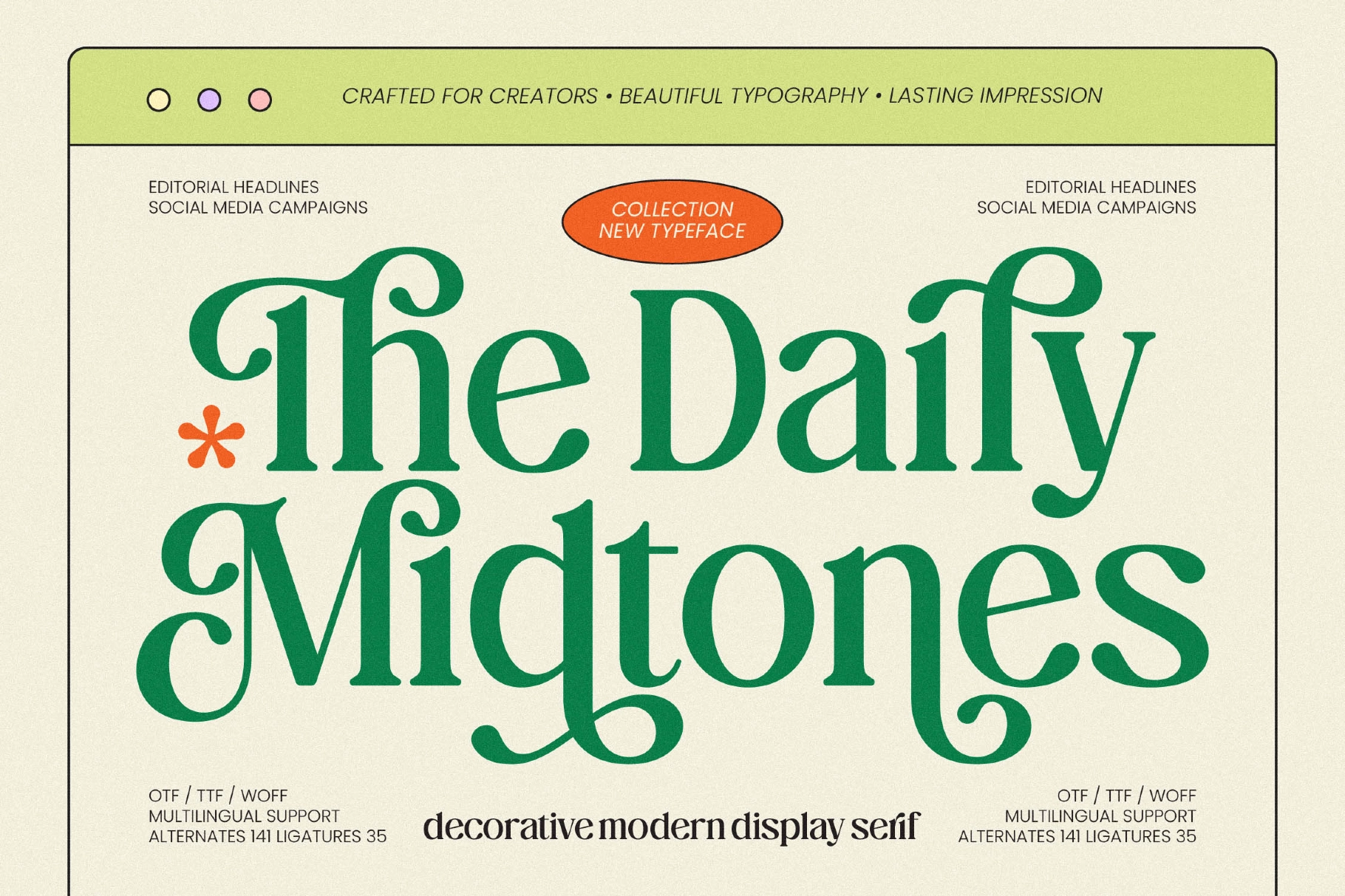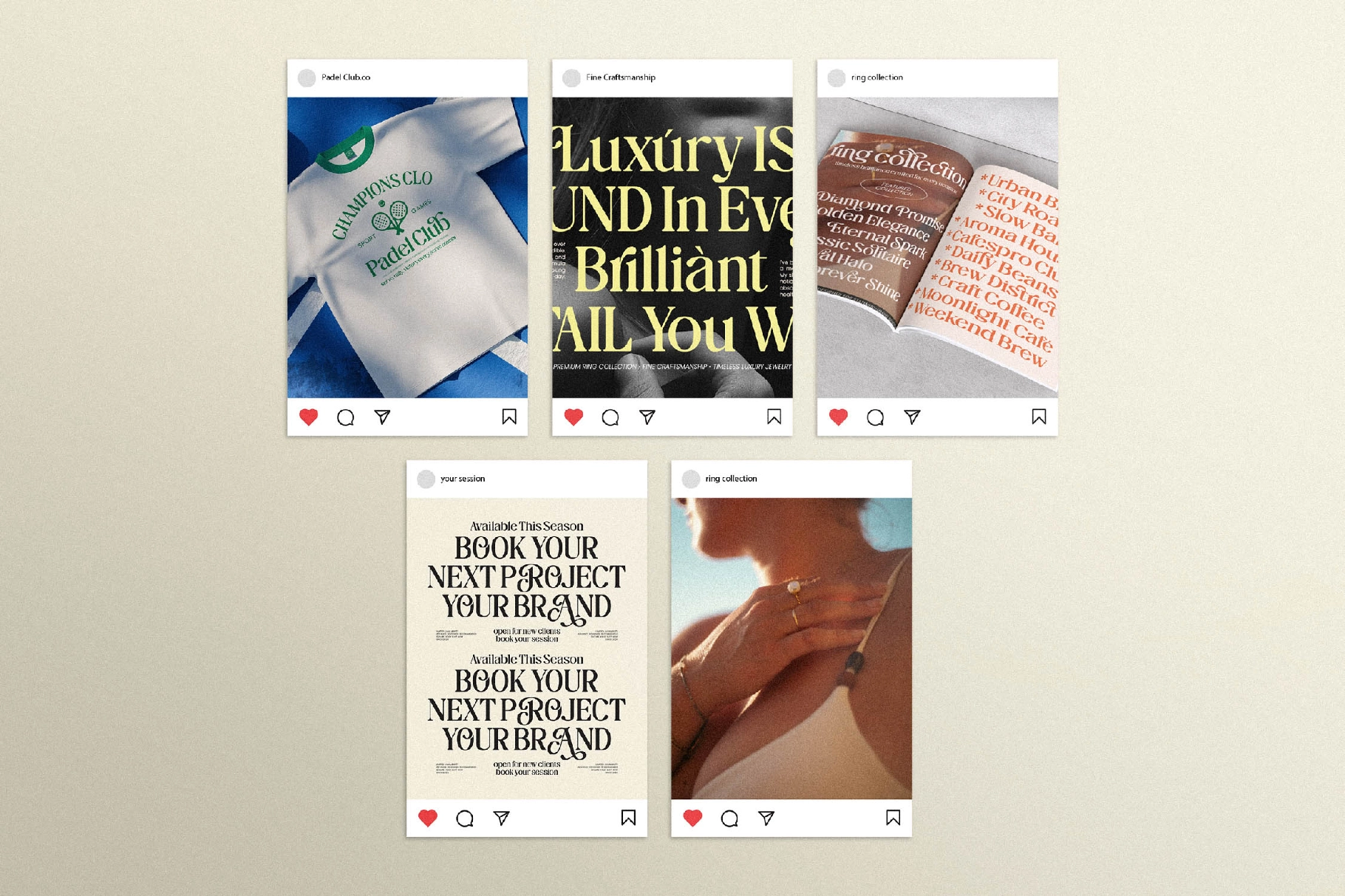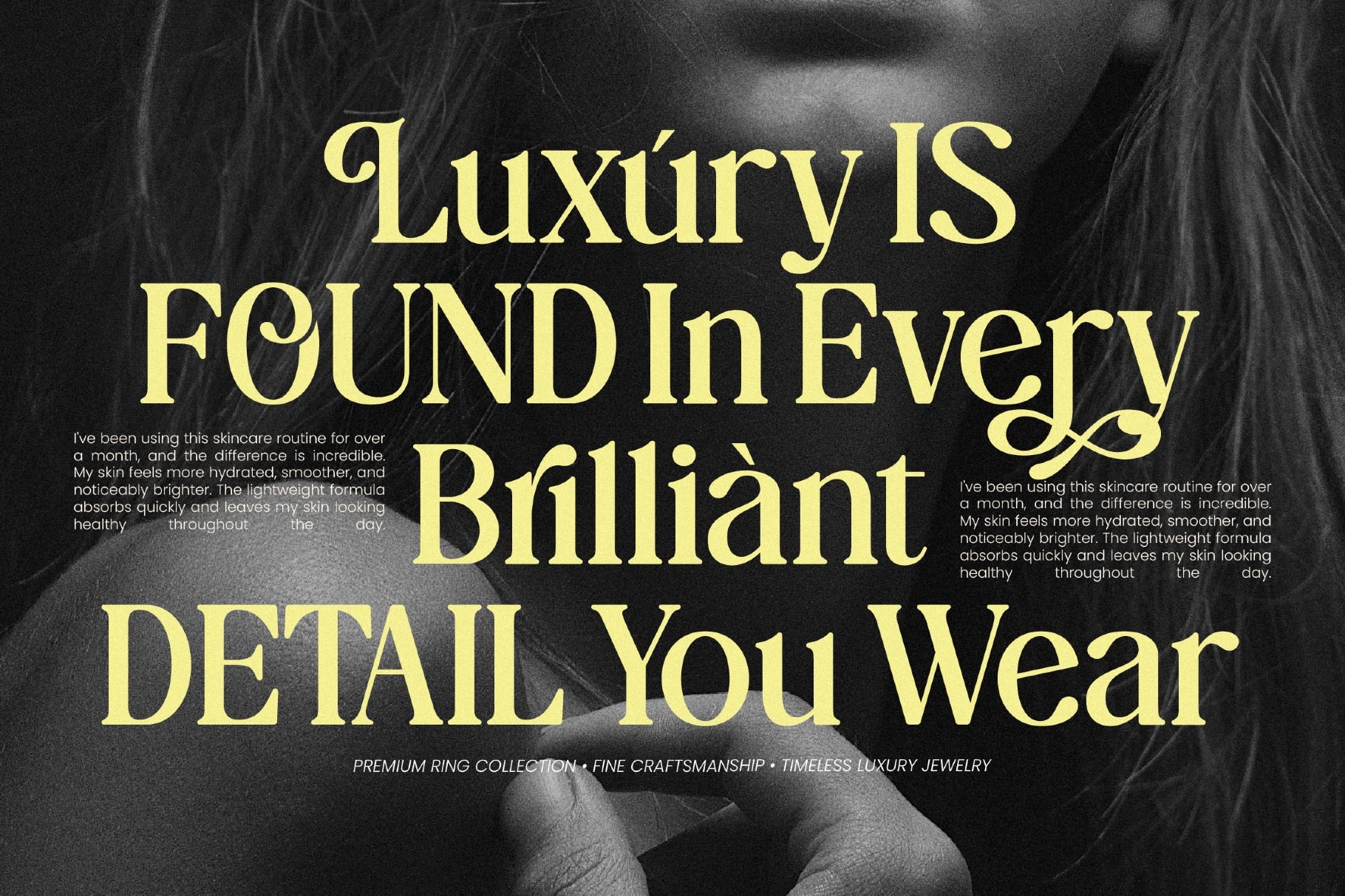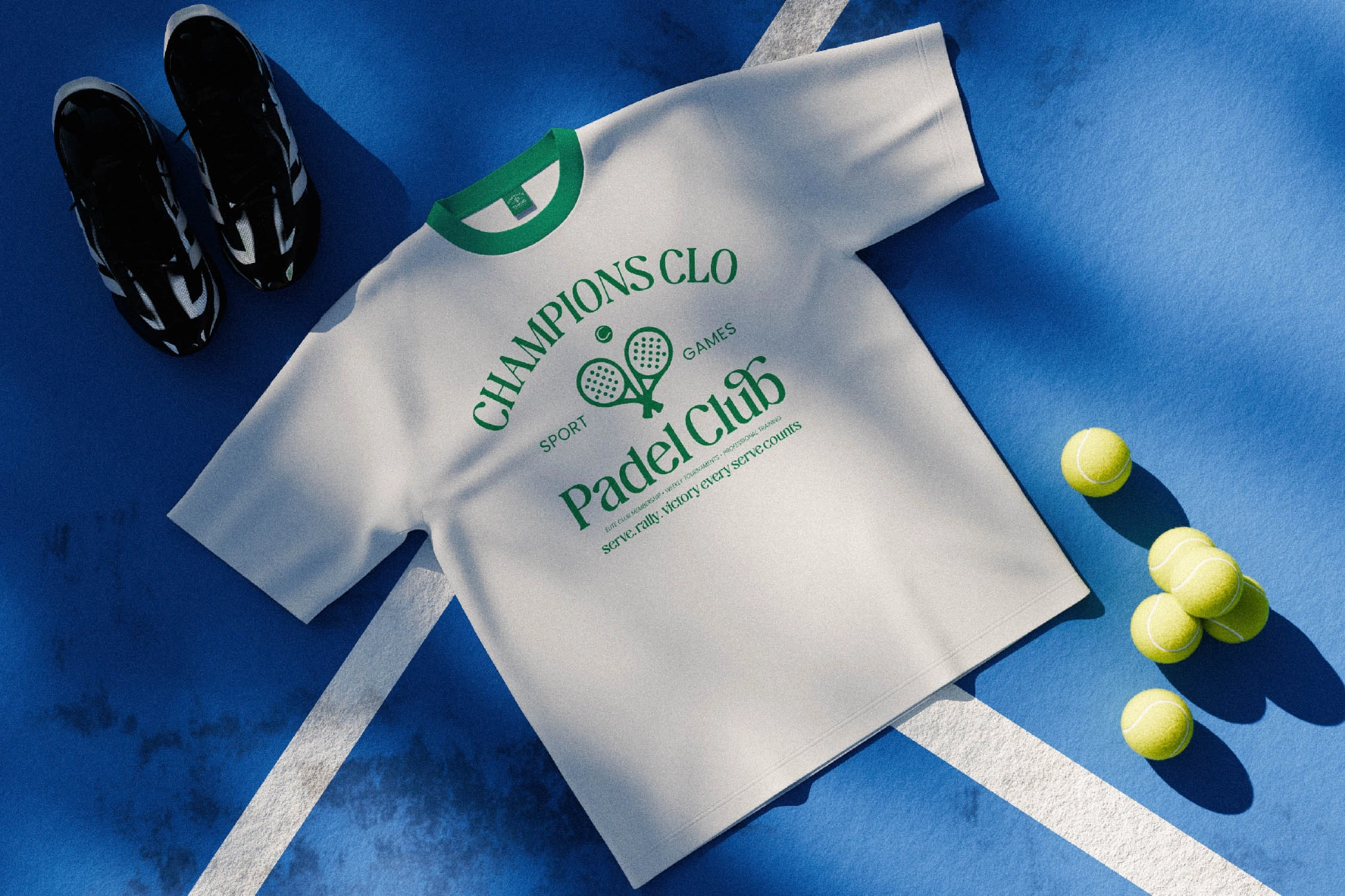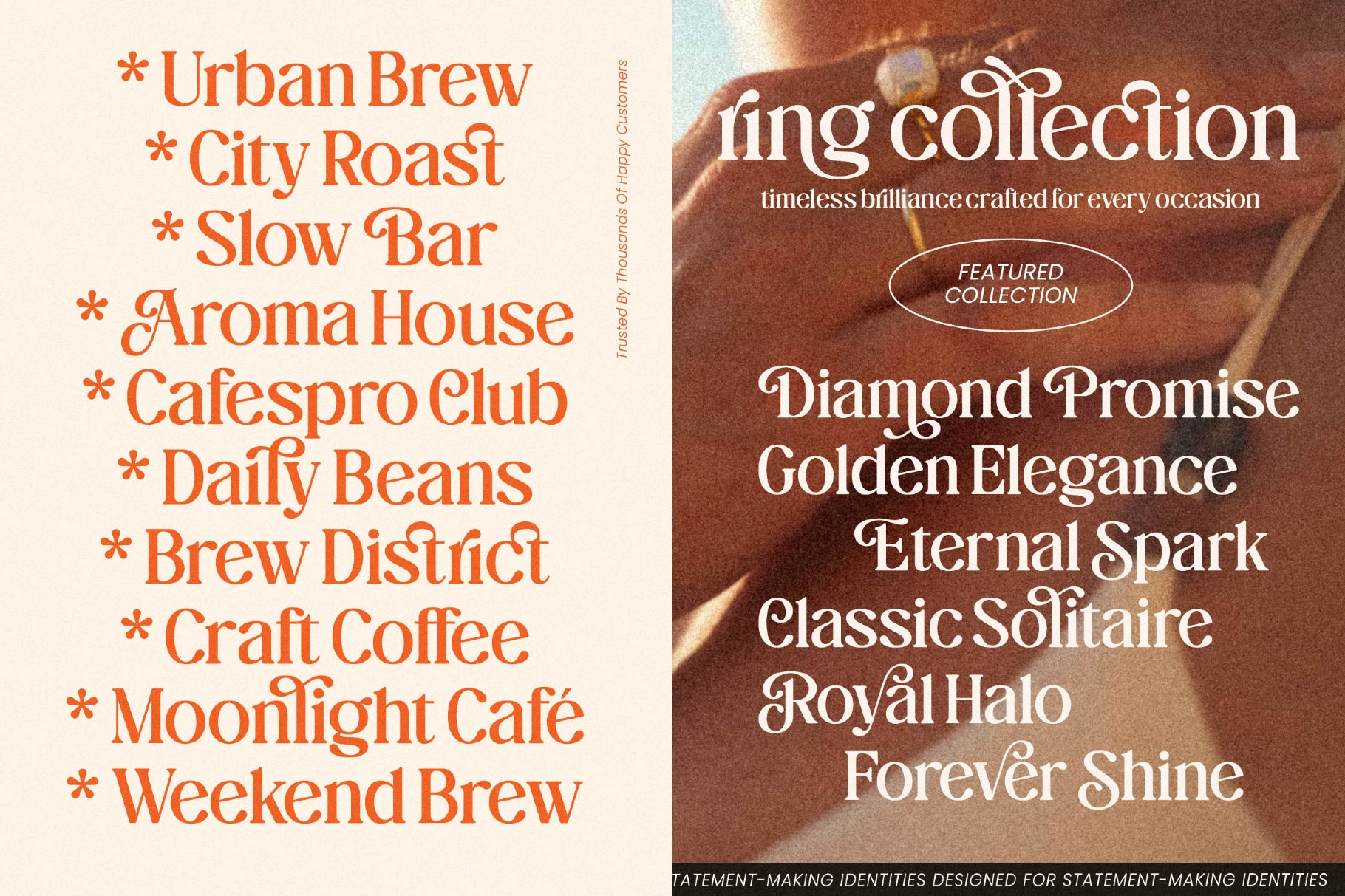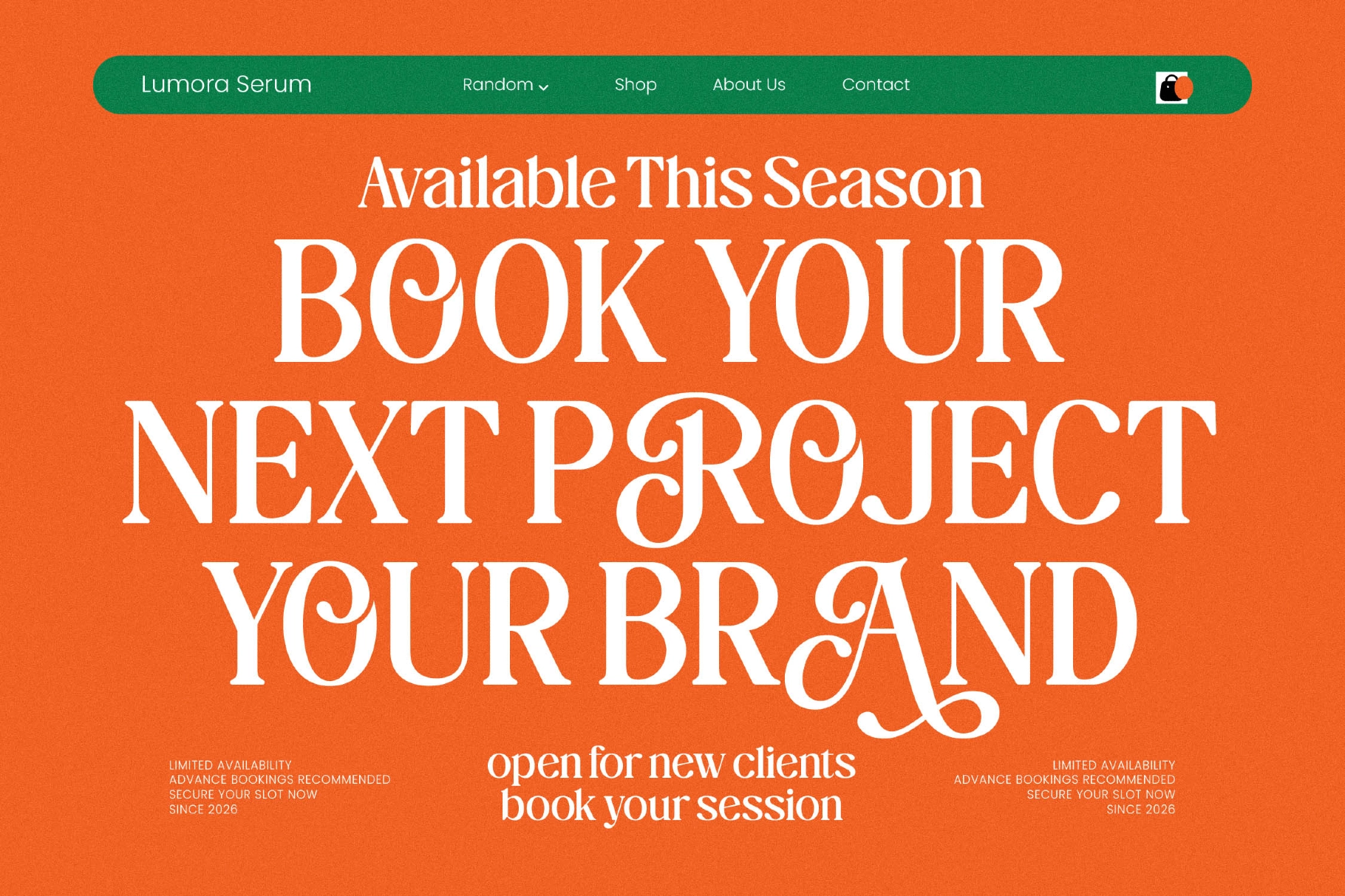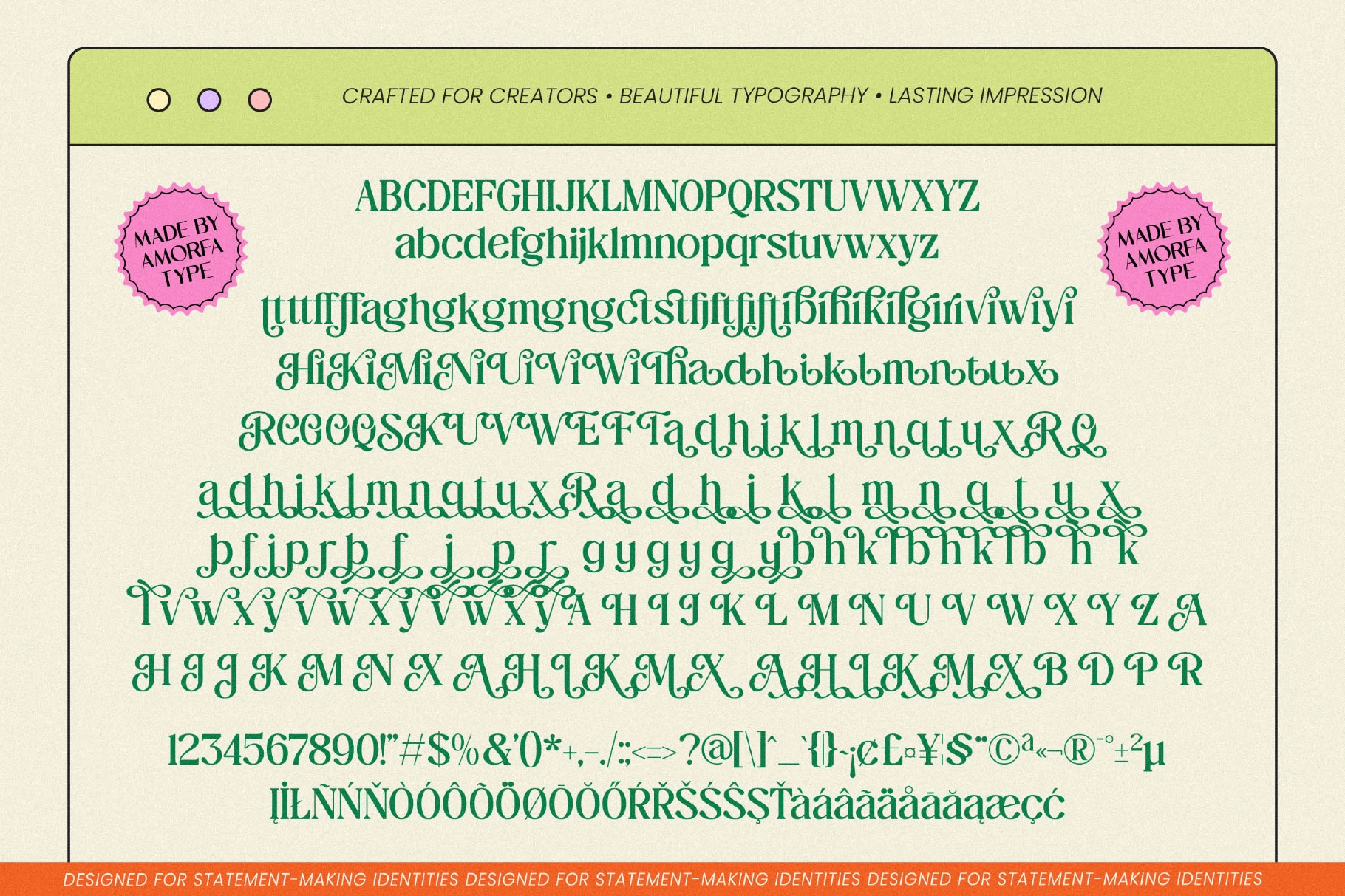
The Daily Midtones - Decorative Display Serif Font
The Daily Midtones pulls its attitude from editorial fashion spreads and fine-jewelry ad copy, pairing high-contrast serif strokes with long, curling swashes that spill out from letters like R, A, and M. This decorative display serif font keeps a classical skeleton — sharp serifs, vertical stress — but the swashes work like hand-inked signage bolted onto a headline face.
Regular handles editorial headlines and packaging copy at full weight, while Italic pushes the swash work further for signature-style branding and invitation lettering. Use it for luxury branding, fashion campaigns, jewelry and beauty ad copy, boutique packaging, and editorial headlines.
- 2 styles: Regular, Italic;
- Uppercase & lowercase;
- Numerals, punctuation & symbols;
- 20 stylistic sets, 35 ligatures & 141 alternate glyphs;
- 506 glyphs per style